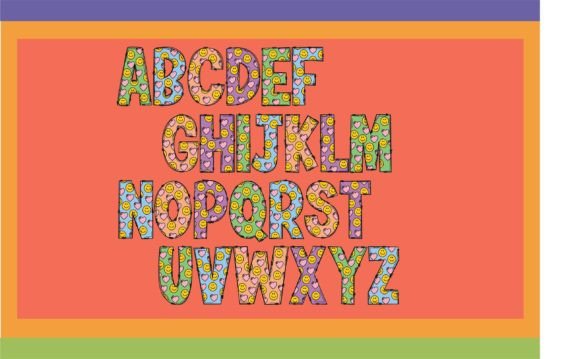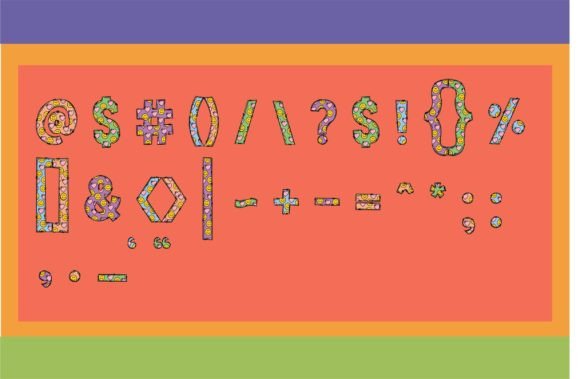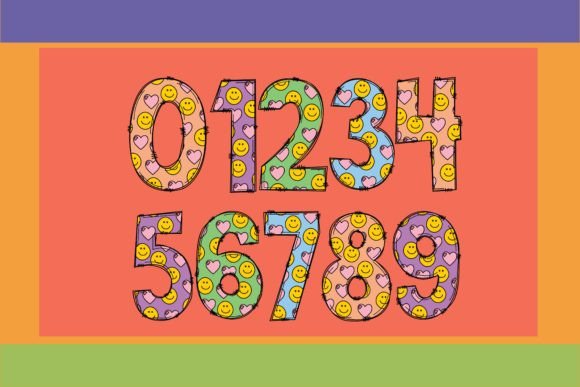
Introduction to Over Love Font
Have you ever stumbled upon the perfect font for your creative project, only to find that it’s the missing piece that takes your design from good to great? That’s exactly what happened when we discovered the Over Love Font. This colorful, pretty, and cheeky font is designed to add a touch of fun to any project, and its searchability feature makes it a game-changer for designers.
As a valuable design resource, the Over Love Font offers a high-quality solution for those looking to elevate their creative work. With its transparent background and cute, playful aesthetic, it’s the perfect addition to any design project. And the best part? It’s available for free download, making it an accessible and exciting resource for designers of all levels.
Whether you’re working on a personal project or a client brief, the Over Love Font is sure to bring a smile to your face and a touch of whimsy to your design. In this article, we’ll delve deeper into the world of this charming font and explore its many uses and benefits.
Key Features of Over Love Font
- High-quality design: Over Love Font is designed to provide a unique and creative touch to any project, making it an excellent choice for designers and artists.
- Transparent background: The font’s transparent background allows for seamless integration with any design element, giving users more creative freedom.
- High-resolution design: With a resolution of 300 DPI, this font is suitable for use in high-quality print materials, such as business cards, posters, and brochures.
- Unique characteristics: The Over Love Font features a distinctive and playful style, making it an excellent choice for creative projects that require a touch of whimsy.
- Design resource: This font can be used as a design resource for various creative projects, including branding, advertising, and editorial design.
Honest Review: Over Love Font
The Over Love Font has a beautiful, elegant design that would be perfect for romantic or love-themed projects. I was impressed by its transparent background, which makes it easy to overlay on any image or background.
- Unique and elegant design
- High-quality font
- Transparent background for easy overlay
- Only available in a single style
- No bold or italic versions
- Might not be suitable for projects that require a lot of text
Overall, I’m impressed by the Over Love Font. It’s a great design resource that’s perfect for romantic or love-themed projects. While it has some limitations, its unique design and high-quality make it a worthwhile addition to any designer’s toolkit.
Tips for Getting the Most Out of Over Love Font
Over Love Font is commonly used in wedding invitations, social media graphics, and blog posts. Its high-quality design and transparent background make it perfect for creating eye-catching visuals. With its free download, you can use it in any creative project, from personal to professional.